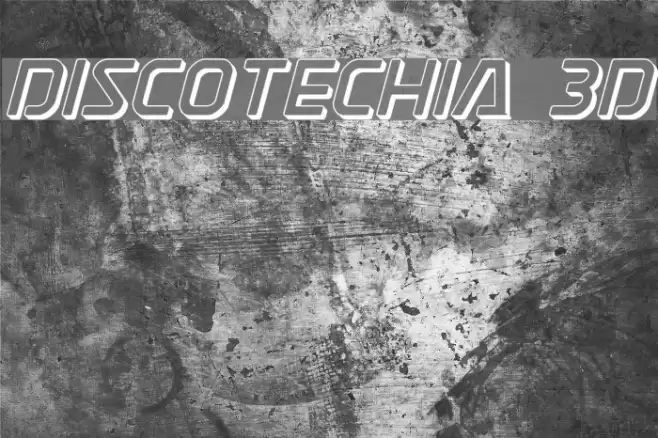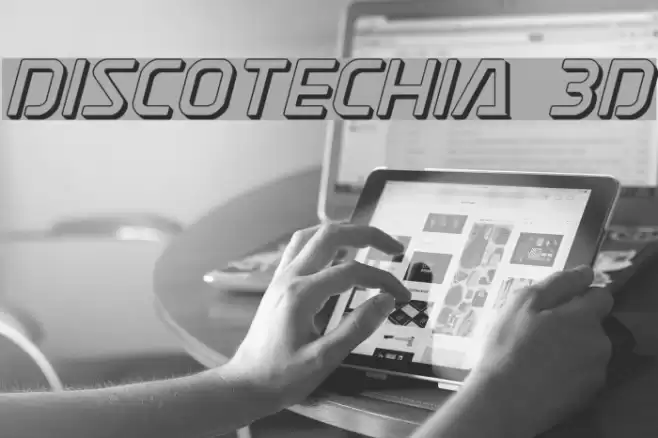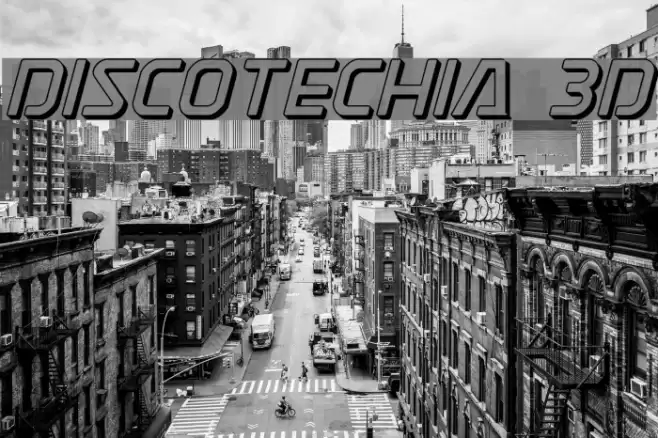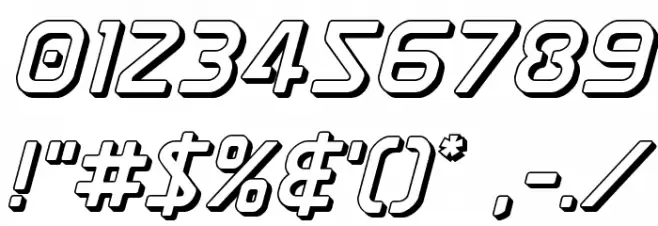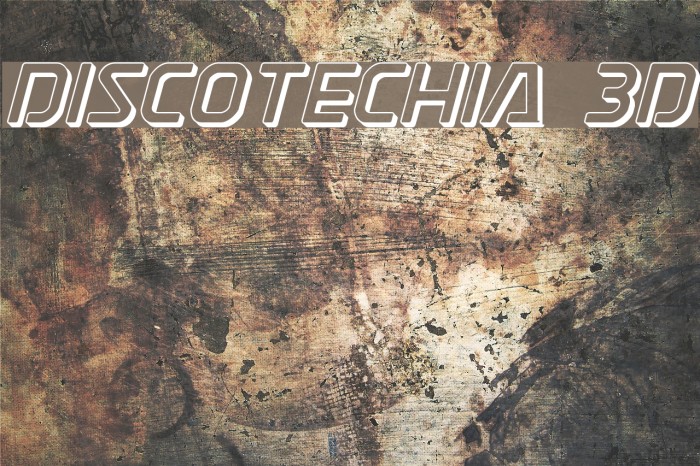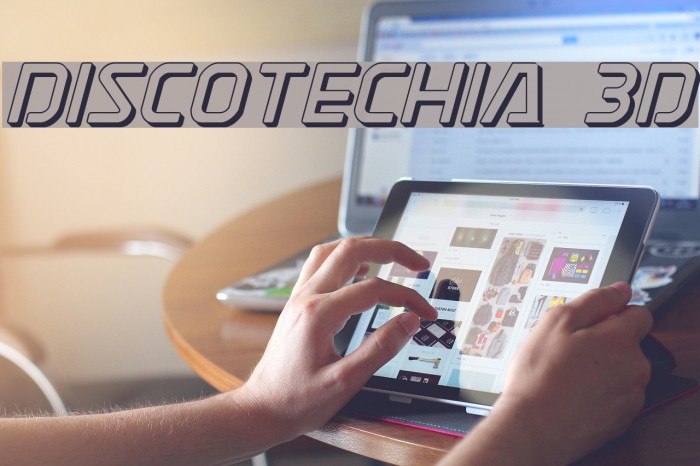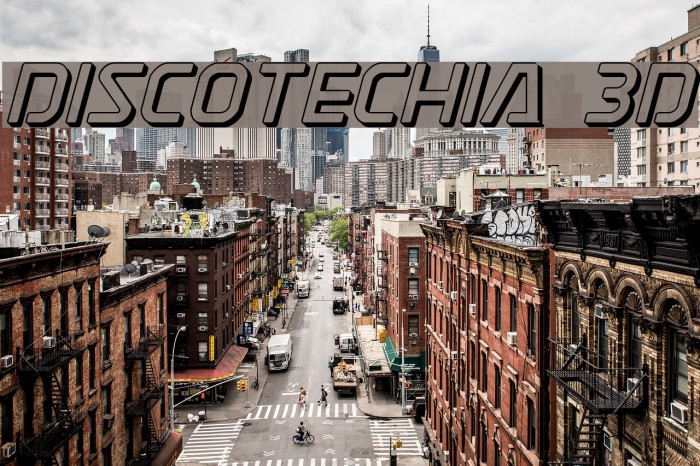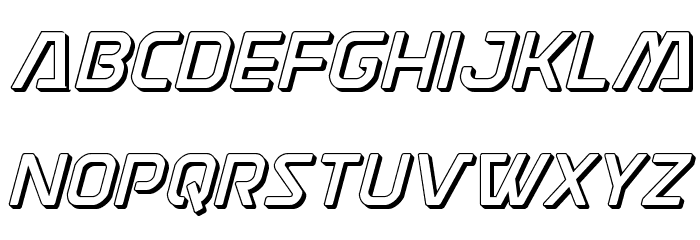
Discotechia 3D Font
Discotechia 3D Description
This font features a bold, three-dimensional appearance with a futuristic and dynamic style. The characters are outlined with a double line, creating a shadow effect that gives depth and a sense of movement. The design is geometric and angular, with sharp edges and clean lines, making it highly legible while maintaining a unique aesthetic. The uppercase and lowercase letters are consistent in style, and the numerals and special characters complement the overall design. This font is perfect for projects that require a modern and eye-catching look.
A bold, 3D futuristic font with geometric and angular design from Uncategorized fonts.
- Proposed Projects: Ideal for posters, album covers, video game titles, and any project needing a modern, dynamic look.